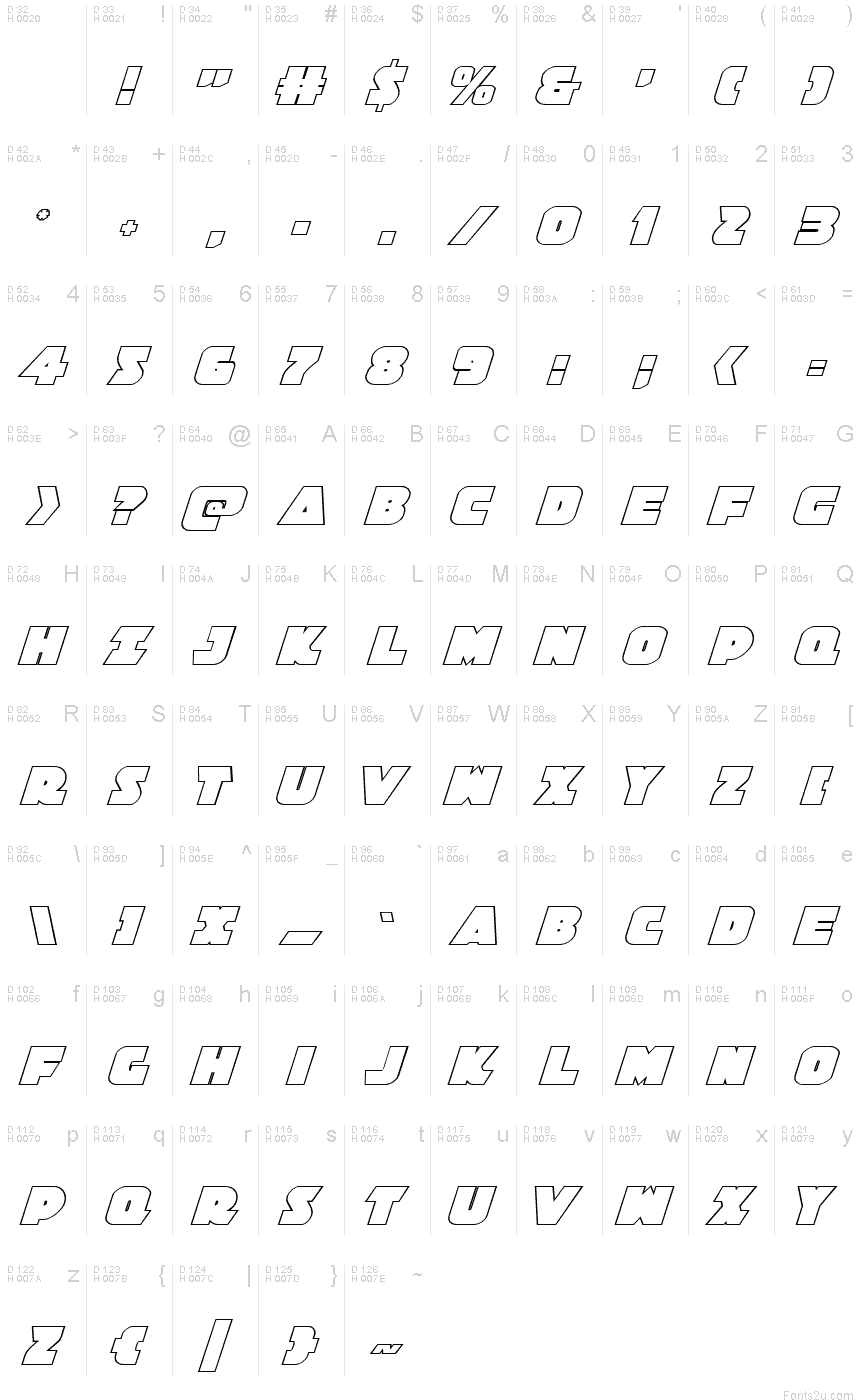
Jedi Special Forces Outline Italic from Iconian Fonts is a free futuristic outlined display font with broad, forward-leaning capitals and a hard-edged silhouette. Deep diagonal cuts and pointed notches break up the shapes and lend the lettering the speed and impact of an action title.
Science-fiction and gaming audiences will recognize its mix of spacecraft sleekness and comic-book force. It fits game logos, film title cards, convention posters, and esports merchandise. Across those uses, open interiors, sharp joins, and a racing slant turn the words into action artwork.
Jedi Special Forces Outline Italic